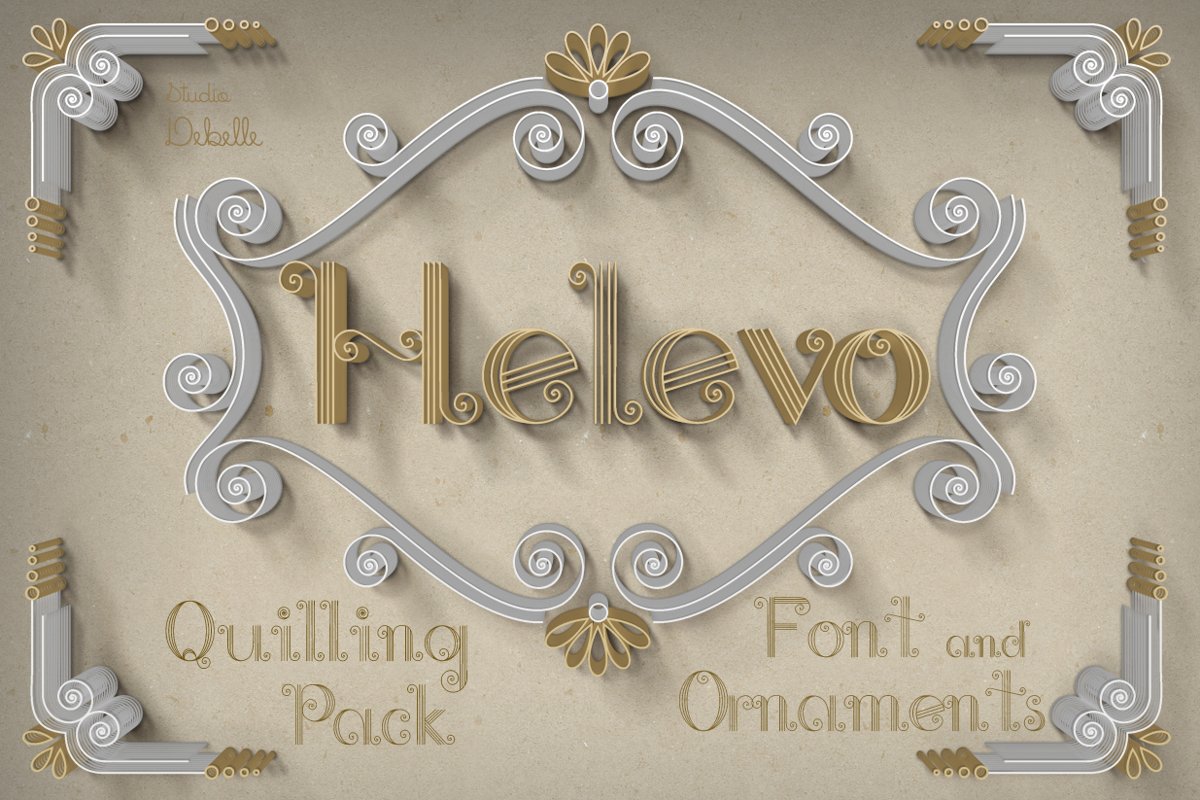
Helevo - Font and Ornaments - Quilling Pack
Helevo
Helevo - Quilling Pack
Lovely font for crafters with 42 ornaments.
Type your text, print and make quilling!